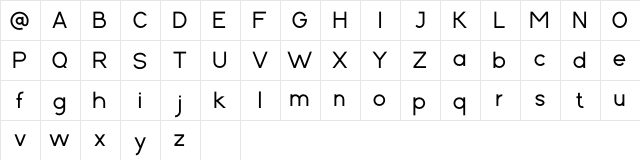
Cartica Regular
| Designer | Dedi Agus Setiawan |
Design Context for Cartica Typeface
Cartica takes a measured approach to typography — its balanced proportions and neutral character make it a reliable workhorse for both digital and print work.